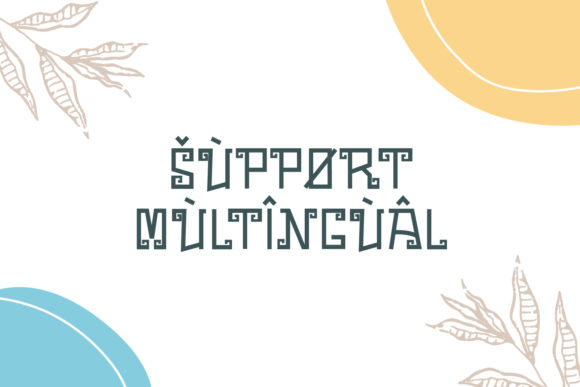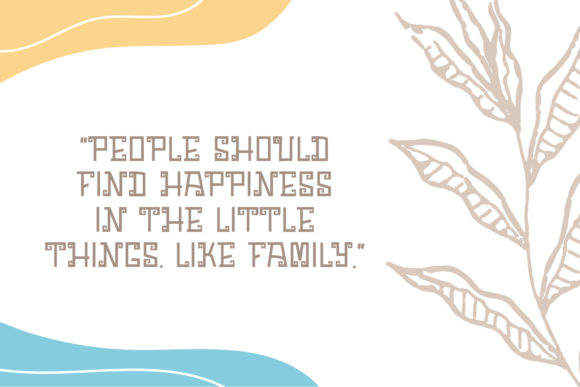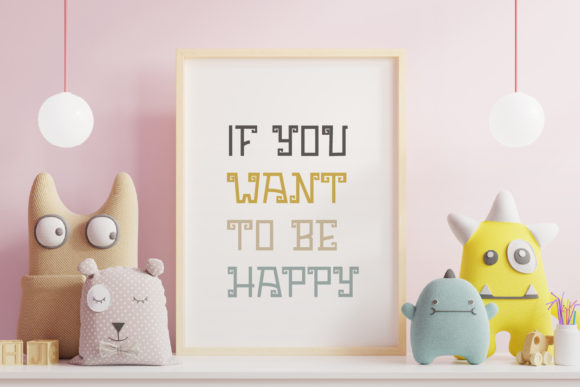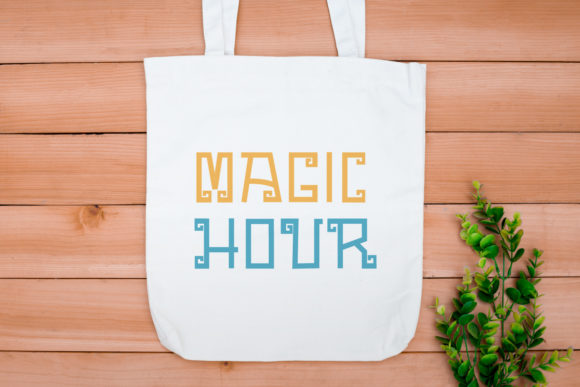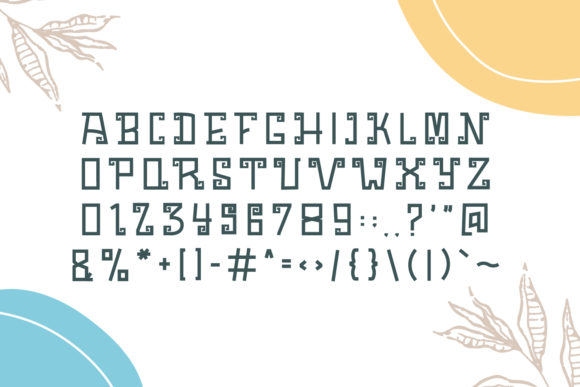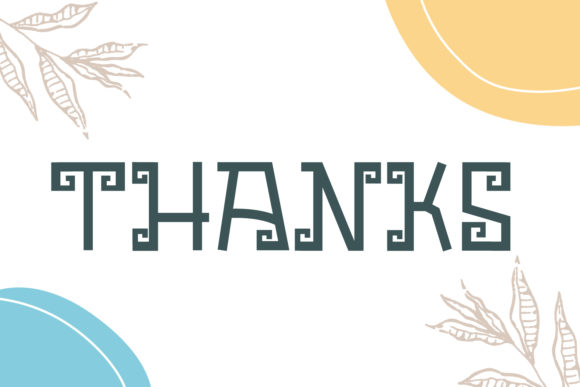
Discover the Perfect Display Font for Your Next Creative Project
Have you ever been brainstorming a new design, only to find yourself stuck on the perfect font to bring your idea to life? We’ve all been there. The search for the perfect font can be a daunting task, but what if we told you that the solution is just a click away? Introducing Charity Font, a charming display font that’s sure to add a touch of whimsy to any project.
With its casual, down-to-earth charm, Charity Font is the perfect addition to any design. Whether you’re working on a quote, a logo, or a children’s design, this font is sure to bring a smile to your face. And the best part? It’s incredibly versatile, making it a valuable tool for designers looking to add a little extra flair to their work.
Charity Font Key Features
- Font Family: A unique, high-quality sans-serif font designed specifically for charity and non-profit organizations.
- Unique Characteristics: Charity Font features a distinctive, modern design with a subtle nod to classic typography, making it perfect for creating a professional and approachable image for non-profit organizations.
Designer Review: Charity Font
Overall, Charity Font has a good foundation but falls short in a few areas.
- Unique aesthetic: Charity Font has a distinct, hand-drawn feel that sets it apart from other fonts.
- Good for creative projects: The font’s playful, whimsical nature makes it well-suited for creative projects, such as children’s books or social media graphics.
- Highly legible: Charity Font is clear and easy to read, even at smaller font sizes.
- Not suitable for formal or professional projects: The font’s casual, hand-drawn feel may not be suitable for formal or professional projects, such as business reports or academic papers.
- Limited font sizes: While the font is legible at smaller sizes, it may not be the best choice for very large or very small font sizes.
- Not as versatile as other fonts: Charity Font is a specialized font that may not be as versatile as other fonts, such as serif or sans-serif fonts.
In conclusion, Charity Font is a good choice for creative projects that require a unique and playful aesthetic. However, it may not be the best choice for formal or professional projects, or for projects that require a high level of versatility.
For best results, use the Charity Font in a clear and concise headline or title, and pair it with a simple and clean background.
For best results, use the Charity Font in a bold and eye-catching headline or title, and pair it with a contrasting background.
For best results, use the Charity Font in a clear and concise headline or title, and pair it with a simple and clean background.
The Charity Font is perfect for:
– Fundraising campaigns and charity events
– Non-profit organizations and social causes
– Awareness campaigns and charity drives
Remember to use the Charity Font in a way that is respectful and tasteful, and always consider the message and audience you are trying to reach.
Alternatives to Charity Font
Montserrat is a modern sans-serif font designed by Julieta Ulanovsky. It is a great alternative to Charity Font when you need a clean and minimalist look for your designs. Montserrat is more versatile and can be used for various typography styles, from body text to headings.
Comparison to Charity Font: Montserrat has a more geometric and modern feel compared to Charity Font’s elegant and cursive style. Montserrat is also more suitable for digital interfaces and websites.